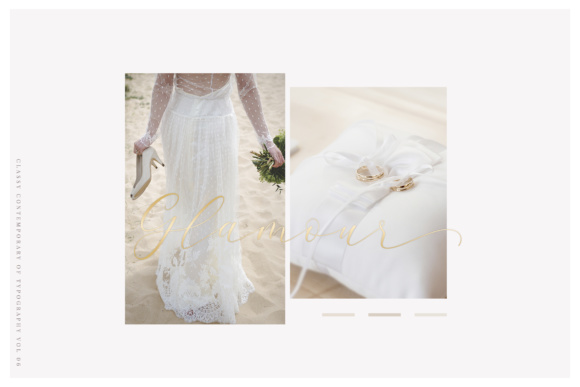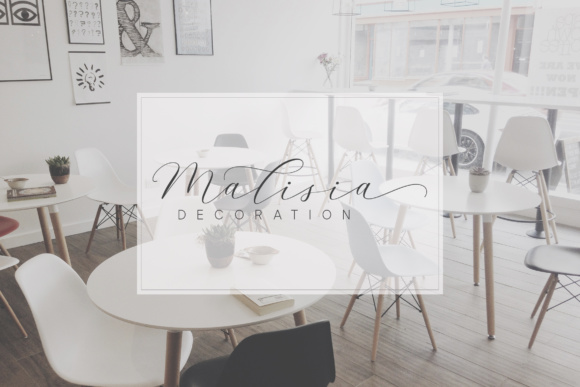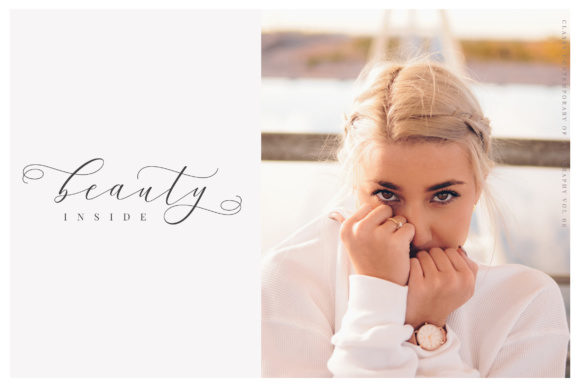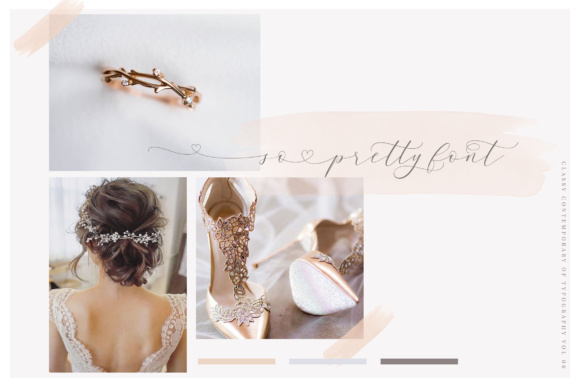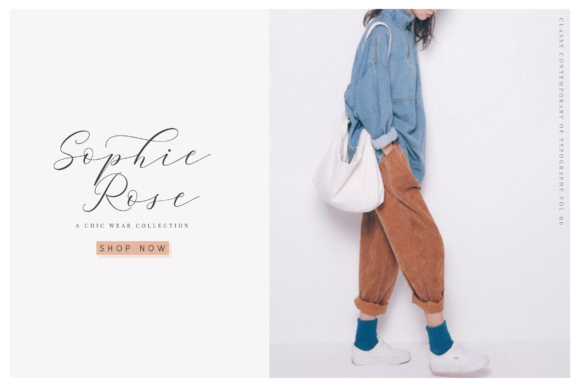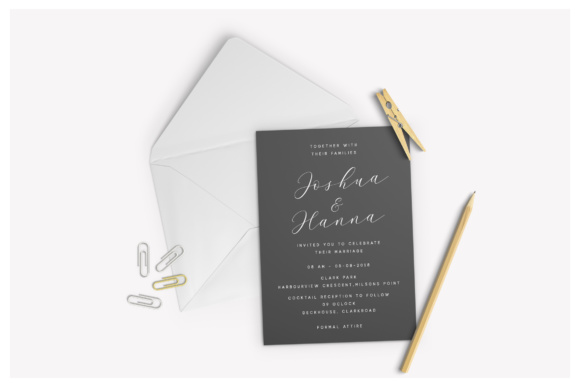
Introducing Antara Script Font: Elevate Your Designs with Elegance and Femininity
In the world of typography, a font can make or break a design. For designers and crafters looking to add a touch of elegance and femininity to their projects, Antara Script Font is an exceptional choice. This classy handwriting font boasts a distinctive curve that sets it apart from other fonts, making it perfect for those seeking to create beautiful and sophisticated designs.
What Makes Antara Script Font Special?
Antara Script Font is not just any ordinary font. Its unique features include:
- Distinctive Curve: The font’s elegant curve gives it a personalized and sophisticated look, making it stand out in any design.
- Lots of Beautiful Swashes: Swashes are decorative flourishes that can add a touch of elegance to any text. Antara Script Font comes with a variety of beautiful swashes that can be used to enhance your designs.
- Beautiful Ligatures: Ligatures are special characters that combine two or more letters into one glyph. Antara Script Font features beautiful ligatures that can add a touch of sophistication to your text.
How to Use Antara Script Font in Your Designs
Antara Script Font is versatile and can be used in a variety of design projects, including:
- Wedding Invitations: The font’s elegant and feminine feel makes it perfect for wedding invitations, ceremony programs, and other wedding-related designs.
- Branding and Packaging: Antara Script Font can add a touch of sophistication to your brand’s packaging and marketing materials.
- Stationery and Paper Crafts: The font is ideal for creating beautiful stationery, journals, and other paper crafts.
- Digital Designs: Antara Script Font can also be used in digital designs, such as social media graphics, blog headers, and website titles.
Tips for Getting the Most Out of Antara Script Font
To get the most out of Antara Script Font, here are a few tips:
- Experiment with Swashes: Don’t be afraid to experiment with different swashes to find the one that works best for your design.
- Mix and Match: Try mixing and matching Antara Script Font with other fonts to create a unique and visually appealing design.
- Pay Attention to Kerning: Make sure to adjust the kerning of your text to ensure that it looks balanced and visually appealing.
Antara Script Font is a beautiful and elegant font that can add a touch of sophistication and femininity to any design. With its distinctive curve, beautiful swashes, and ligatures, it’s the perfect choice for designers and crafters looking to create stunning designs. Whether you’re working on a wedding invitation, branding project, or digital design, Antara Script Font is sure to impress.